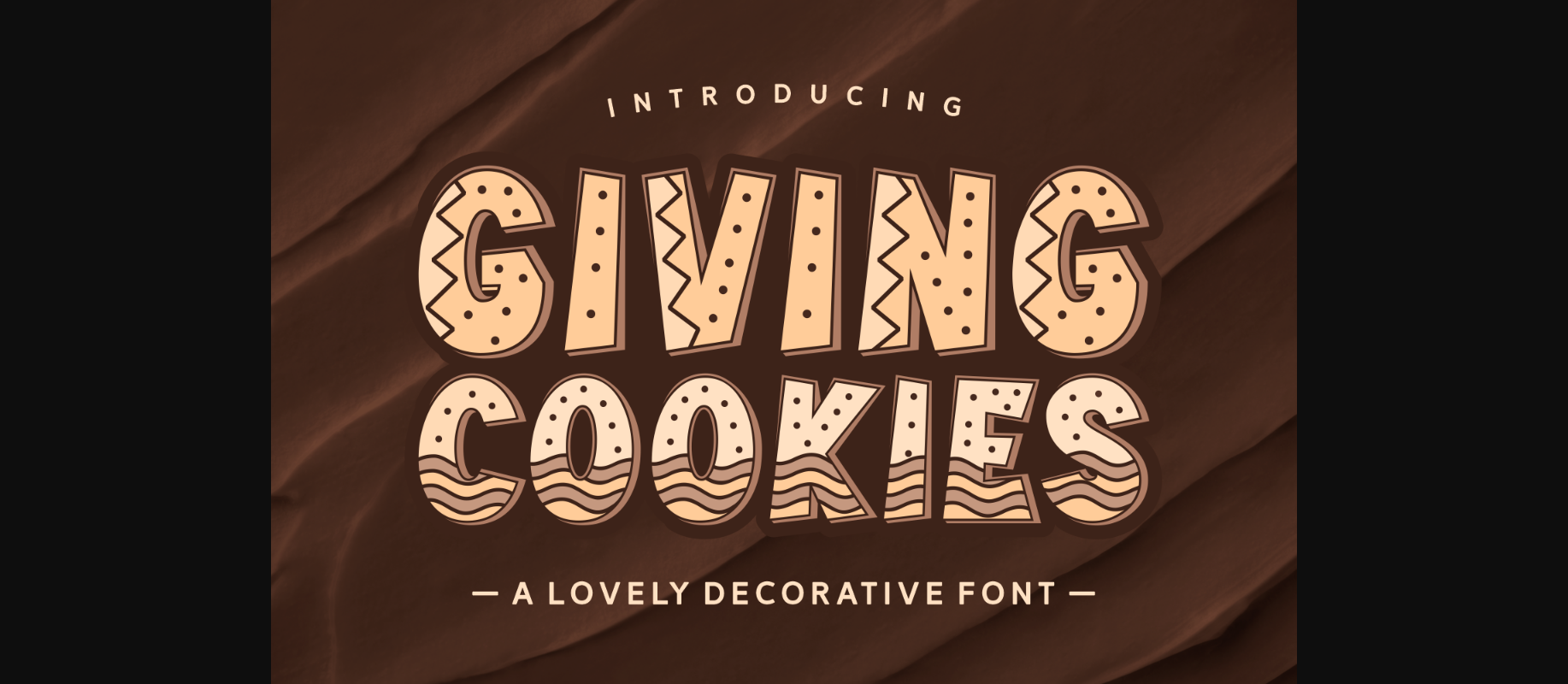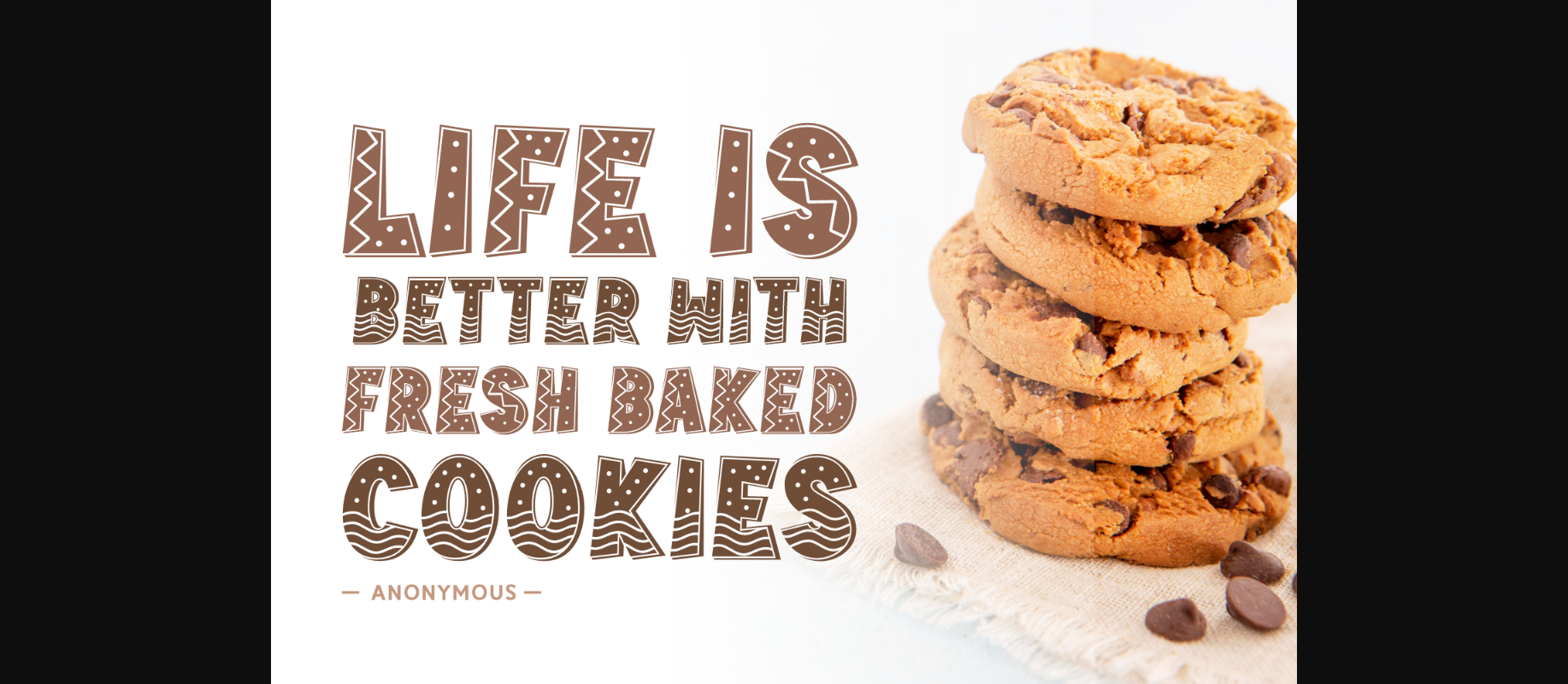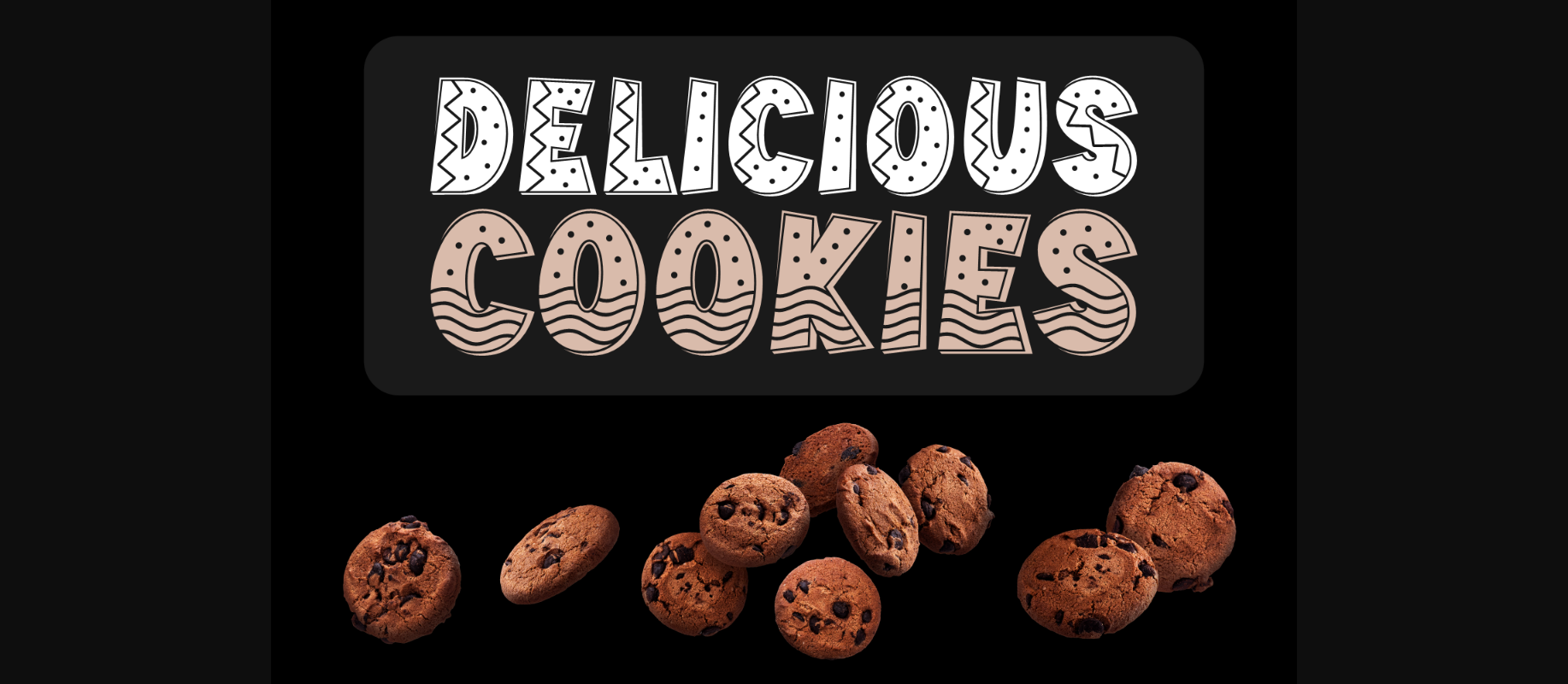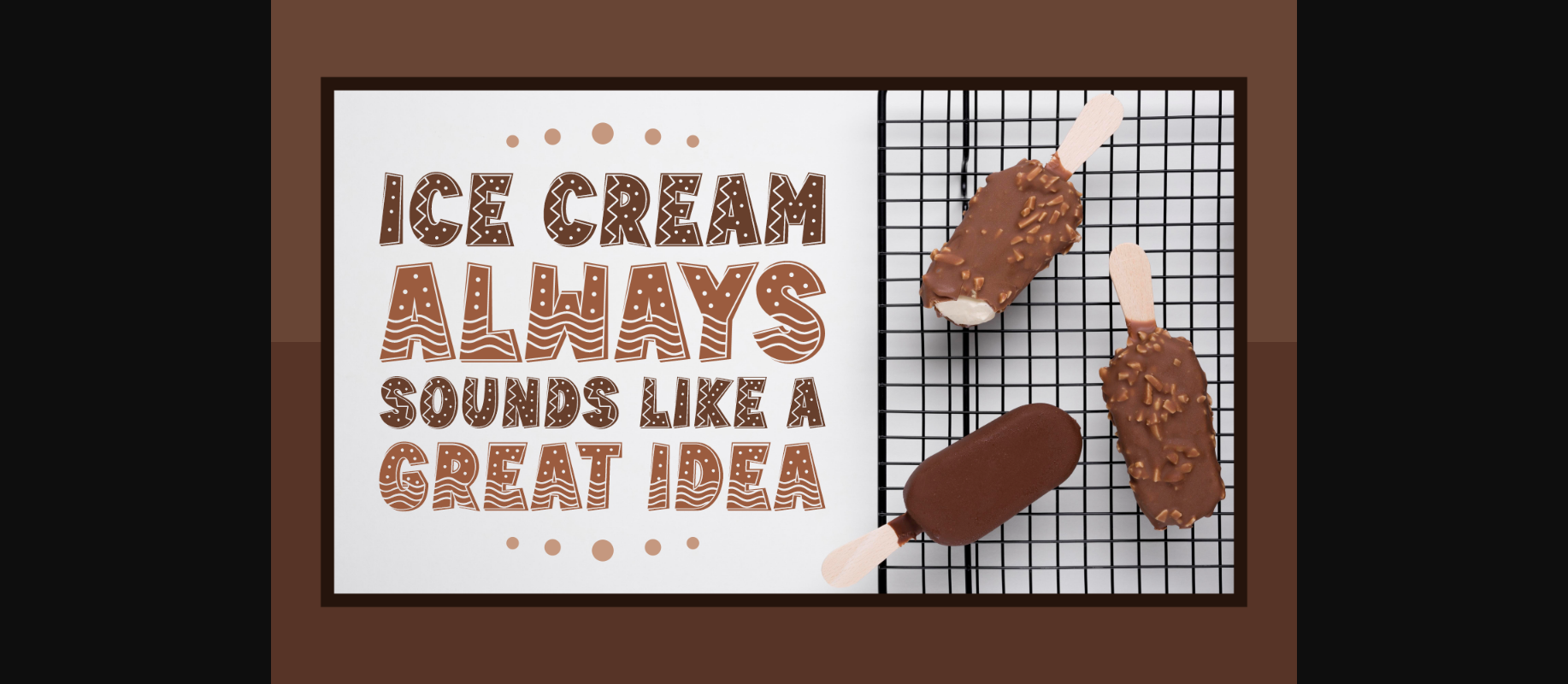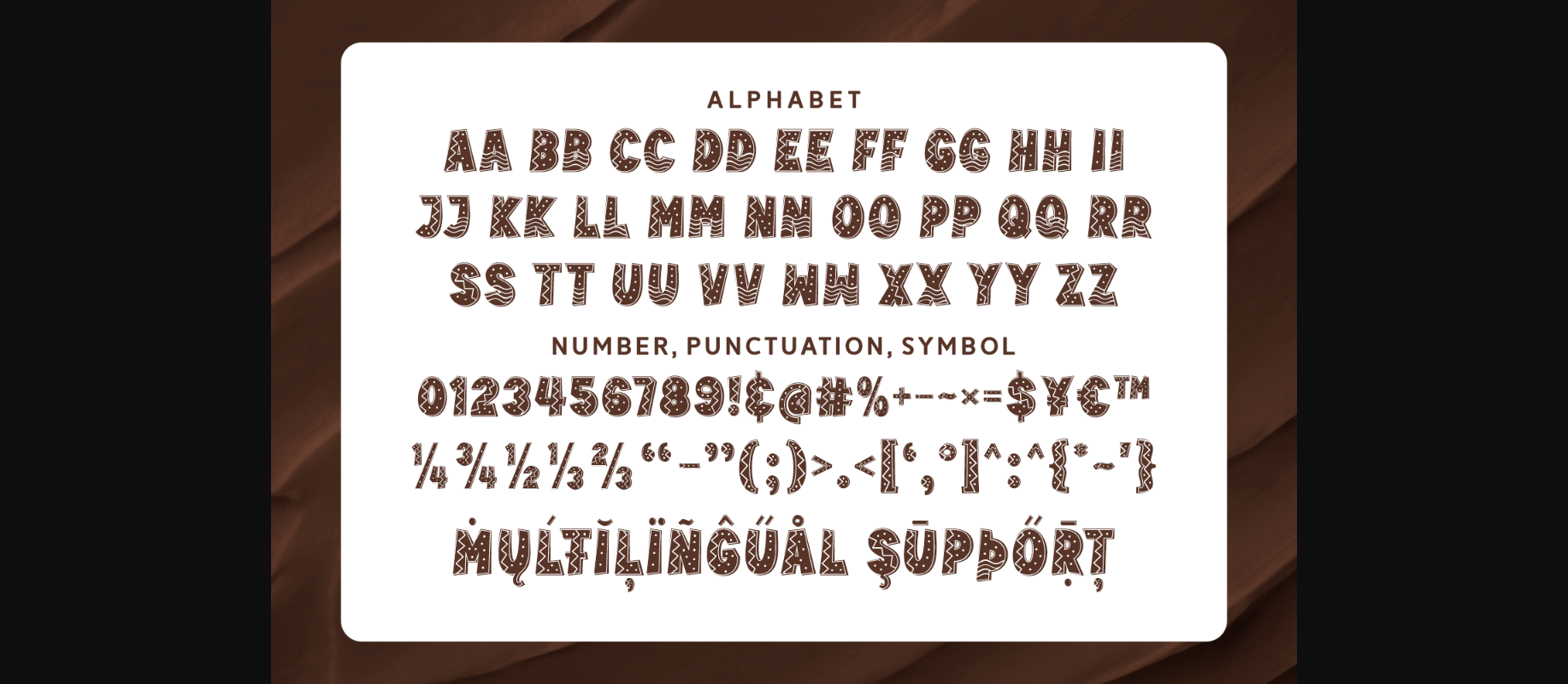
About Giving Cookies Font
Giving Cookies is a sweet and fabulous decorative font. The lovely details give this font its charm and uniqueness. Choose this adorable typeface for branding bakeries, baked goods, and candy shops, or use it to create cute product packaging, posters, flyers, labels, websites, and many more.